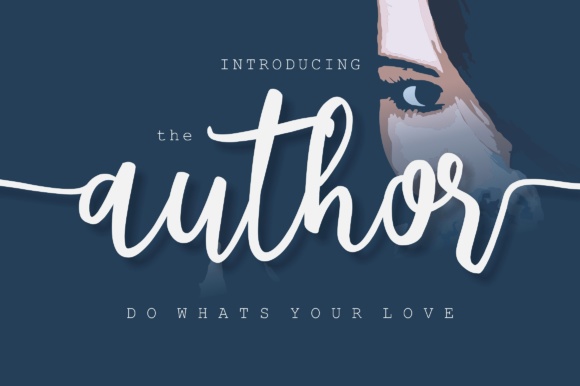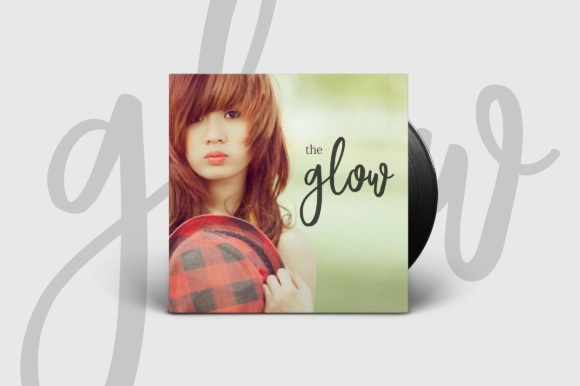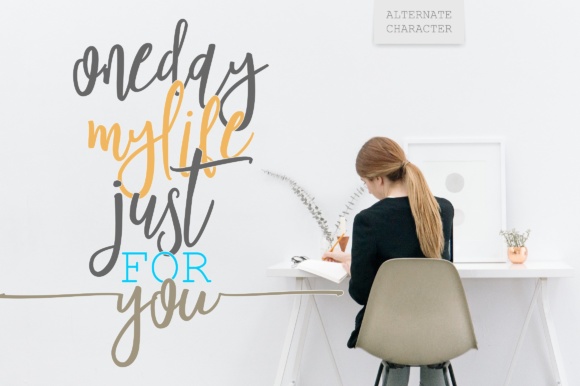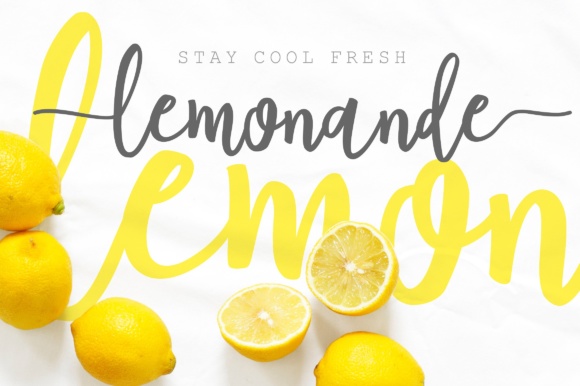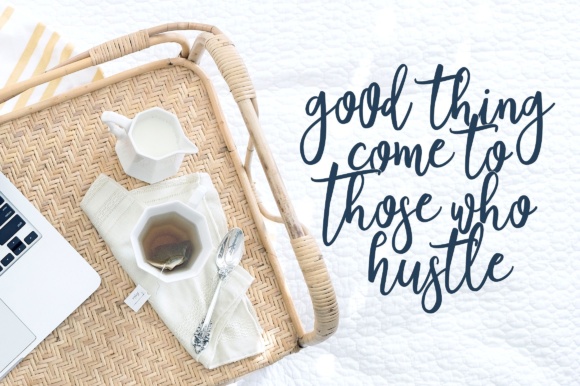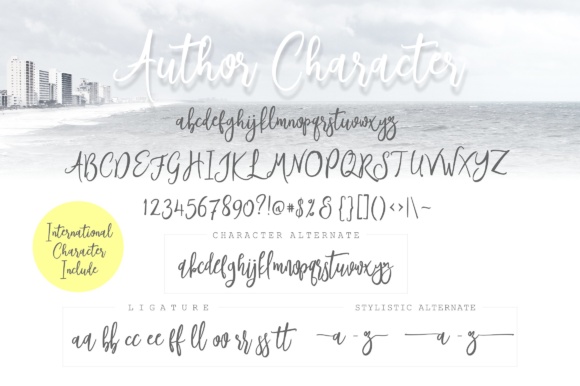
The Author Font
The Author is a new and interesting script typeface. Perfect for projects brands, logos, product packaging, branding, clothing, scrap booking and every other design that needs a personal charm.